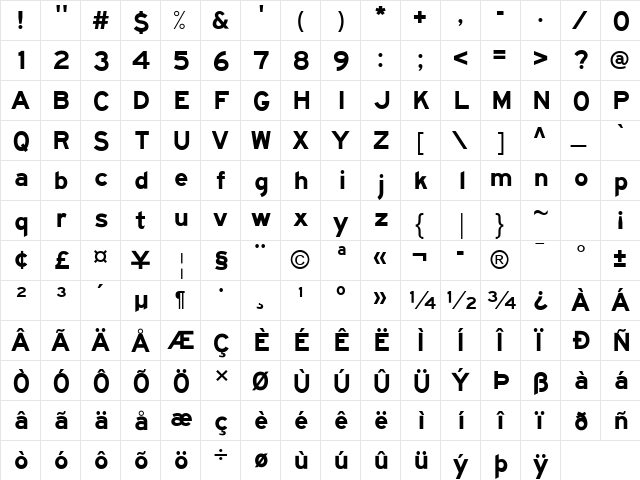
Freeway Gothic Regular
Design Context for Freeway Gothic Typeface
Freeway Gothic has the quiet confidence of well-executed sans-serif typography: versatile, unobtrusive, and dependable at any size.
Font Pairing: Works well alongside a characterful serif or display font that can carry the expressive load while Freeway Gothic handles the functional copy.
Pro Tip: Use Freeway Gothic for UI labels, navigation, and short-form body copy where clean legibility is the priority.